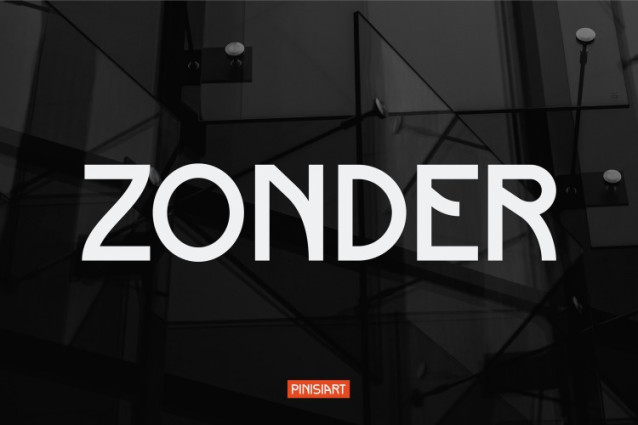
Zonder Font
Zonder Font: Bold modern beauty with strong geometric shapes and sharp edges. Its sharp precision shapes every word, creating a striking balance between style and professionalism. Furthermore, this font combines aesthetic clarity with powerful functionality, giving designers a tool that is both beautiful and versatile. Therefore, you can use it for digital campaigns, branding or promotional materials, and ZONDER ensures that your message is conveyed in an impressive and sophisticated way.
Unlike conventional fonts, the ZONDER Instagram font exudes authority and confidence. Its futuristic look makes it ideal for projects that combine modern innovation with timeless clarity. Carefully balanced curves and straight lines enhance readability while maintaining a sleek, eye-catching identity. As a result, your text not only appears on the screen, but also attracts attention.